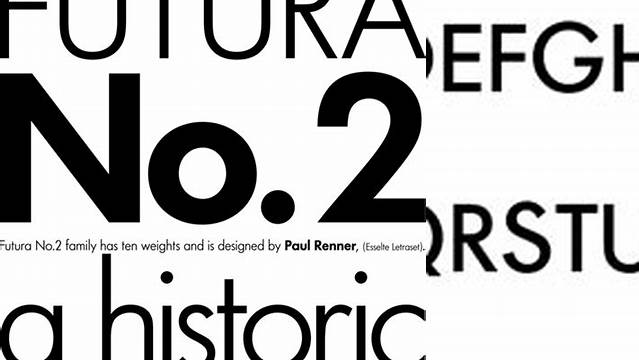
Are you looking to elevate your design projects with a font that exudes both sophistication and modernity? Look no further than Futura No. 2 Small Caps Medium (D) font! This timeless typeface has been a favorite among designers for decades, and for good reason. Its clean lines, geometric shapes, and elegant small caps make it a versatile choice for a wide range of applications, from branding and advertising to editorial design and web typography. In this article, we'll delve into the history, characteristics, and best uses of Futura No. 2 Small Caps Medium (D) font, and guide you on how to download it for free and incorporate it seamlessly into your creative workflow. Guys, trust me, once you start using Futura No. 2 Small Caps Medium, you'll wonder how you ever designed without it! We're going to explore why this font is so beloved and how you can get your hands on it without spending a dime. Let's dive in and discover the magic of Futura No. 2 Small Caps Medium (D)!
What is Futura No. 2 Small Caps Medium (D) Font?
Futura No. 2 Small Caps Medium (D) is more than just a font; it's a statement of minimalist elegance and functional design. Designed by Paul Renner in 1927, Futura is a geometric sans-serif typeface that draws inspiration from the Bauhaus design movement. Its letterforms are based on simple geometric shapes like circles, squares, and triangles, giving it a clean, modern, and highly legible appearance. The "Small Caps Medium (D)" variant adds a unique twist to the classic Futura design. Small caps are uppercase letters that are designed to be the same height as the lowercase letters, creating a more harmonious and balanced visual texture. The "Medium" weight offers a balanced stroke thickness that's neither too bold nor too light, making it suitable for both headlines and body text. The "(D)" likely refers to a specific variation or version of the font within the Futura family. Futura No. 2 Small Caps Medium (D) embodies the principles of the New Typography movement, emphasizing clarity and functionality. Its geometric construction and lack of decorative serifs make it a highly legible font, even at small sizes. The small caps add a touch of sophistication and formality, making it an excellent choice for designs that need to convey authority and professionalism. The font's clean lines and minimalist aesthetic make it incredibly versatile, fitting seamlessly into a variety of design styles, from corporate branding to editorial layouts. Its enduring popularity is a testament to its timeless design and its ability to communicate effectively across different media. If you're aiming for a modern, clean, and sophisticated look, Futura No. 2 Small Caps Medium (D) is your go-to font. Itβs like the little black dress of typography β always in style and effortlessly chic. Trust me, guys, you'll be reaching for this font time and time again.
History and Evolution of Futura Font
The story of Futura is a fascinating journey through the evolution of typography and design. To truly appreciate Futura No. 2 Small Caps Medium (D), we need to understand its historical context and the influences that shaped its creation. The Futura font family emerged in the late 1920s, a period of significant change and innovation in the art world. Paul Renner, a German typeface designer, was commissioned by the Bauer Type Foundry to create a new typeface that reflected the modern spirit of the age. Renner, deeply influenced by the Bauhaus movement's emphasis on functionality and geometric forms, set out to create a typeface that was both visually striking and highly legible. His vision was to move away from the ornate, traditional typefaces of the past and embrace a more streamlined, geometric aesthetic. The result was Futura, a groundbreaking typeface that quickly became a symbol of modern design. Its letterforms, based on simple geometric shapes like circles, squares, and triangles, represented a radical departure from the serif typefaces that had dominated printing for centuries. Futura's clean lines and minimalist aesthetic resonated with designers and architects who were embracing the principles of modernism. The font was quickly adopted for a wide range of applications, from corporate logos and advertising campaigns to books and magazines. Over the years, Futura has undergone several revisions and expansions, resulting in a diverse family of fonts that includes various weights, styles, and sizes. Futura No. 2 Small Caps Medium (D) is one such variation, offering a unique combination of the classic Futura design with the elegance of small caps. The evolution of Futura reflects the changing trends in typography and design, but its core principles of geometric simplicity and legibility have remained constant. Its enduring popularity is a testament to its timeless design and its ability to communicate effectively across generations. Futura's influence can be seen in countless other typefaces, making it a true icon in the world of typography. Seriously, guys, Futura's impact on design is undeniable. It's a font that has shaped the way we communicate visually, and its legacy continues to inspire designers today.
Key Characteristics of Futura No. 2 Small Caps Medium (D)
What makes Futura No. 2 Small Caps Medium (D) so special? It's all in the details, guys! This font boasts a unique combination of characteristics that contribute to its distinctive and versatile nature. Let's break down the key features that define this timeless typeface:
- Geometric Construction: At its core, Futura is built upon simple geometric shapes β circles, squares, and triangles. This geometric foundation gives the font its clean, modern, and highly structured appearance. The letterforms are precise and consistent, creating a sense of visual harmony.
- Sans-Serif Design: Futura is a sans-serif typeface, meaning it lacks the small decorative strokes (serifs) that are found at the ends of letterforms in traditional typefaces. This absence of serifs contributes to its minimalist and contemporary aesthetic.
- Small Caps: The "Small Caps" designation refers to the inclusion of uppercase letters that are designed to be the same height as the lowercase letters. This feature adds a touch of elegance and formality, making it suitable for headlines, subheadings, and body text where a subtle emphasis is desired. Small caps create a more balanced visual texture compared to using full-sized uppercase letters.
- Medium Weight: The "Medium" weight strikes a perfect balance between boldness and lightness. It's heavy enough to be easily readable, but not so heavy that it becomes overpowering. This makes it a versatile choice for a variety of applications.
- (D) Variation: The "(D)" likely refers to a specific version or variant within the Futura family. This could indicate subtle differences in the letterforms, spacing, or other design details compared to other Futura variations. Without specific details about the (D) variation, it's generally understood to be a standard and well-regarded version of Futura.
- High Legibility: Futura's clean lines and geometric forms contribute to its excellent legibility, even at small sizes. This makes it a practical choice for body text, as well as headlines and other display uses.
- Timeless Appeal: Futura's design has stood the test of time. Its minimalist aesthetic and functional elegance ensure that it remains a relevant and stylish choice for designers today.
The combination of these characteristics makes Futura No. 2 Small Caps Medium (D) a truly exceptional typeface. It's a font that communicates clarity, sophistication, and modernity, all while maintaining a sense of timeless elegance. Guys, if you're looking for a font that's both beautiful and functional, Futura No. 2 Small Caps Medium (D) is a winner!
Best Uses for Futura No. 2 Small Caps Medium (D)
Now that we know what makes Futura No. 2 Small Caps Medium (D) so special, let's explore how you can put it to work in your design projects. This font's versatility makes it a fantastic choice for a wide range of applications. Here are some of the best ways to use Futura No. 2 Small Caps Medium (D) to its full potential:
- Branding and Logo Design: Futura's clean, modern aesthetic makes it an excellent choice for creating logos and branding materials that convey sophistication and professionalism. Its geometric forms communicate stability and trustworthiness, making it ideal for businesses looking to establish a strong brand identity.
Conclusion: Embrace the Timeless Elegance of Futura
In conclusion, guys, Futura No. 2 Small Caps Medium (D) is more than just a font; it's a design icon. Its timeless elegance, geometric simplicity, and remarkable versatility have made it a favorite among designers for nearly a century. From its Bauhaus-inspired origins to its continued relevance in today's design landscape, Futura has proven its ability to transcend trends and communicate effectively across a wide range of applications. Whether you're designing a logo, a website, a magazine spread, or anything in between, Futura No. 2 Small Caps Medium (D) offers a sophisticated and modern solution that will elevate your work. Its clean lines, balanced proportions, and elegant small caps create a visual harmony that is both pleasing to the eye and highly functional. While finding it for free might be a challenge, exploring alternatives or investing in a license is well worth the effort. And remember, understanding how to use Futura effectively is key to unlocking its full potential. Pair it wisely, mind the hierarchy, consider the context, and let its inherent beauty shine. So, guys, embrace the timeless elegance of Futura No. 2 Small Caps Medium (D) and let it inspire your creativity. This font is a true classic, and it's sure to become a valuable asset in your design toolkit. Go forth and create something amazing!